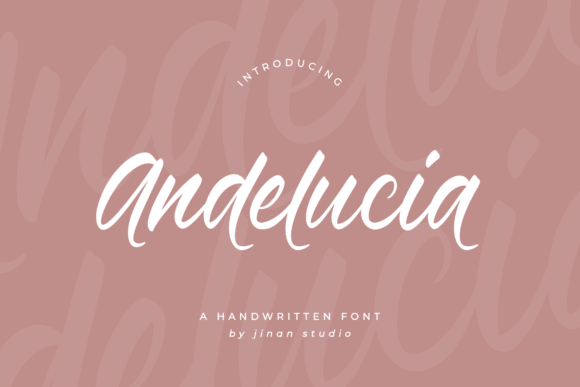
Andelucia Font: Elevate Your Designs with Elegance and Sophistication
In the world of typography, few fonts manage to capture the essence of elegance and sophistication as effortlessly as Andelucia. This stunning handwritten typeface is designed to bring a personal flair to your projects, making it an ideal choice for a variety of creative endeavors. From wedding invitations to brand identities and social media visuals, Andelucia’s script elegance flows effortlessly, infusing every design with a stylish sophistication and captivating charm.
Exceptional Fit for Various Contexts
Andelucia’s versatility is one of its standout features. Its unique blend of elegance and playfulness makes it suitable for a wide range of applications, including:
- Wedding Invitations: Add a touch of romance and sophistication to your wedding invitations with Andelucia’s beautiful script.
- Brand Identities: Establish a strong brand presence with Andelucia’s elegant and stylish typography.
- Social Media Visuals: Elevate your social media graphics with Andelucia’s captivating charm and sophistication.
A Paradigm of Exquisite Artistry
Andelucia is a masterpiece of font design, boasting exquisite artistry that sets it apart from other typefaces. Its elegant script flows effortlessly, exuding tenderness in each stroke and highlighting the unique beauty of your creative endeavors.
This font is a painter’s dream, offering a level of sophistication and refinement that is hard to find in other typefaces. Whether you’re a designer, artist, or creative professional, Andelucia is sure to inspire your next project.
Crafted for Brilliance
Andelucia is more than just a font – it’s a design solution crafted for brilliance. Its elegant script and sophisticated charm make it the perfect choice for designers looking to add a touch of luxury to their projects.
With Andelucia, you can:
- Elevate your designs: Add a touch of elegance and sophistication to your projects with Andelucia’s beautiful script.
- Stand out from the crowd: Use Andelucia to differentiate your brand and make your designs more memorable.
- Save time: Andelucia’s versatility and ease of use make it a convenient choice for designers with tight deadlines.
With Andelucia, you can:
- Explore new design possibilities: Use Andelucia to experiment with new design concepts and ideas.
- Enhance your brand identity: Establish a strong brand presence with Andelucia’s elegant and stylish typography.
- Make your designs shine: Add a touch of luxury and sophistication to your projects with Andelucia’s beautiful script.
In conclusion, Andelucia is a stunning handwritten typeface that offers a unique blend of elegance, sophistication, and playfulness. Its exceptional fit into various contexts, exquisite artistry, and crafted brilliance make it an ideal choice for designers looking to elevate their projects.